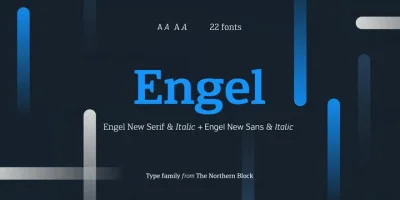
Engel New Font
Engel New Font is ideal for spiritual wellness branding, peaceful meditation apps, heavenly spa signage, inspirational book covers, serene healing centers, angelic beauty products, and divine lifestyle publications.
What makes Engel New Font exciting is its heavenly grace and spiritual serenity, featuring ethereal letterforms that capture the essence of divine inspiration while delivering peaceful visual comfort and celestial authenticity.
The Engel New Font family includes Ultra Light, Light, Regular, Medium, Bold, and Heavy weights, plus ethereal variants and celestial alternates that enhance the font's heavenly character and spiritual possibilities.
Engel New Font embodies the divine essence of spiritual peace and heavenly tranquility through inspired typography design. This ethereal typeface captures the sublime beauty of celestial realms and spiritual awakening, creating a peaceful visual language that speaks to souls seeking divine connection, inner harmony, and the transformative power of spiritual enlightenment. The font's heavenly character and angelic appearance make it perfect for spiritual organizations, wellness practitioners, and healing brands that want to communicate divine love, spiritual guidance, and the profound peace of celestial connection.
Spiritual organizations and wellness practitioners consistently choose Engel New Font for projects that require authentic divine credibility and heavenly visual appeal. The typeface's ethereal construction and celestial personality make it exceptionally effective for meditation centers, spiritual retreats, and healing practices where divine connection and spiritual authenticity are paramount. Each character has been crafted with heavenly precision to ensure peaceful appeal across all spiritual applications and divine environments.
The spiritual advantages of Engel New Font extend beyond its heavenly appeal to include practical functionality for diverse wellness applications. The font maintains excellent readability during meditation sessions while delivering the distinctive character that creates meaningful spiritual experiences and connects with audiences seeking authentic divine guidance. Its comprehensive character set includes spiritual symbols and celestial elements that make it particularly suitable for sacred documentation and divine communication.
Meditation centers, spiritual retreats, and healing organizations frequently incorporate Engel New Font into their brand identity systems because of its ability to instantly convey divine authenticity and celestial peace. The typeface's heavenly aesthetic helps establish spiritual credibility while appealing to seekers who value divine connection, spiritual growth, and the profound peace that comes from authentic spiritual practice and celestial guidance.